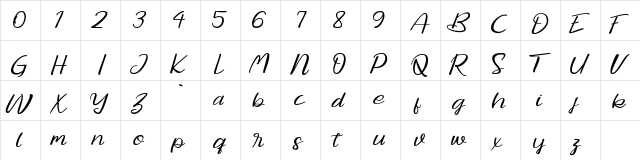
Michelline Regular Font Preview
Michelline Regular
Design Context for Michelline Typeface
Michelline is a composed and adaptable typeface that performs quietly and consistently across a wide range of design contexts.